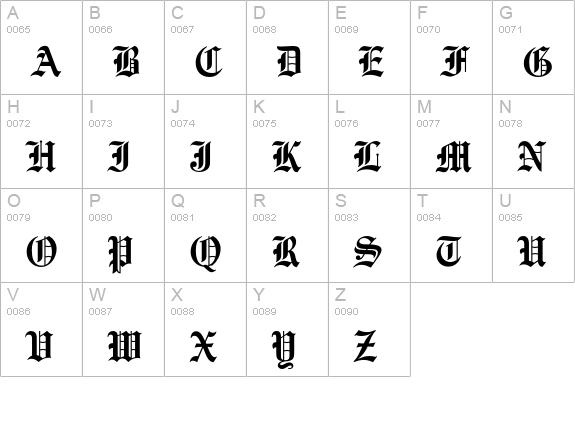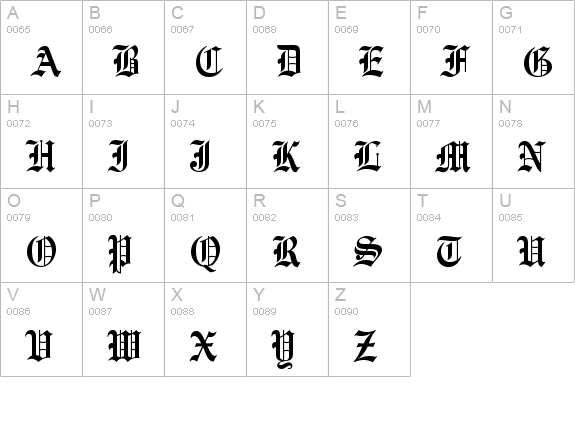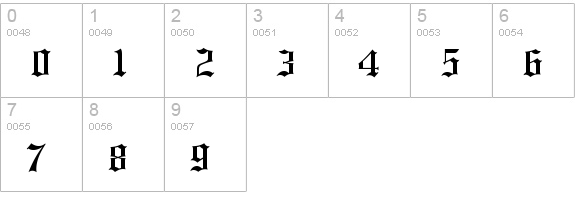
Old English Std Font Details
Old English Std font is a timeless and elegant typeface that exudes a sense of history and tradition. With its intricate and ornate letterforms, this font is perfect for adding a touch of sophistication to your designs. Whether you're creating invitations, signage, or branding materials, Old English Std font will bring a classic and distinguished look to your projects. The best part is, Old English Std font is available for free download at FontsMarket.com. Now you can easily access this stunning font and incorporate its old-world charm into your designs without any cost. Don't miss out on the opportunity to enhance your work with the beauty of Old English Std font - download it today and elevate your design projects to the next level.